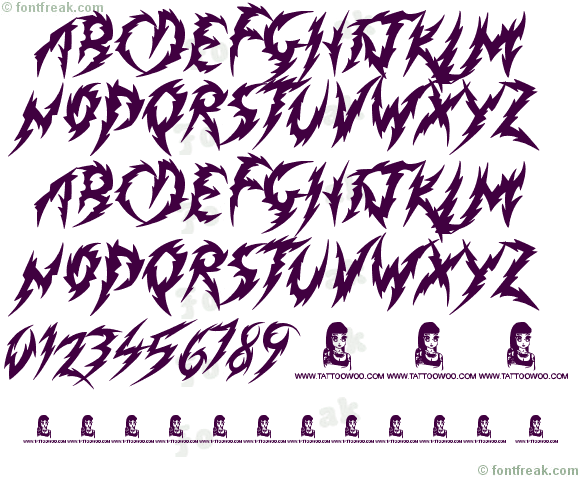
Minimum Loss
About Minimum Loss
Minimum Loss is a striking display font designed by Jonathan S. Harris, perfect for those seeking a bold and edgy typographical statement. This freeware font is characterized by its sharp, jagged strokes that evoke a sense of energy and movement, making it an ideal choice for projects that require a strong visual impact. The uneven stroke weight and high contrast between thick and thin lines contribute to its dynamic appearance, while the generous spacing allows for readability even in larger formats.
This font shines in various creative applications, particularly where a dramatic flair is desired. It is well-suited for posters and promotional materials for music events, especially in genres like rock or punk. Additionally, Minimum Loss can elevate the design of merchandise such as t-shirts or stickers, where an eye-catching typeface is essential. Its unique style also makes it a great choice for branding elements, especially for businesses aiming to convey a rebellious or unconventional image. Graphic designers and small business owners will find this font invaluable for creating memorable logos and identities that stand out in crowded markets.
Content creators looking to enhance their digital projects will appreciate the versatility of Minimum Loss. Whether used in social media graphics, video intros, or website headers, this font can capture attention and convey a sense of urgency and excitement. With its distinctive visual identity, Minimum Loss font free download offers an opportunity for creatives to infuse their work with a touch of individuality.
In conclusion, Minimum Loss sets itself apart with its fierce design and versatility. It is an exceptional choice for anyone looking to make a lasting impression through typography, combining artistic flair with practical usability across various platforms and mediums.